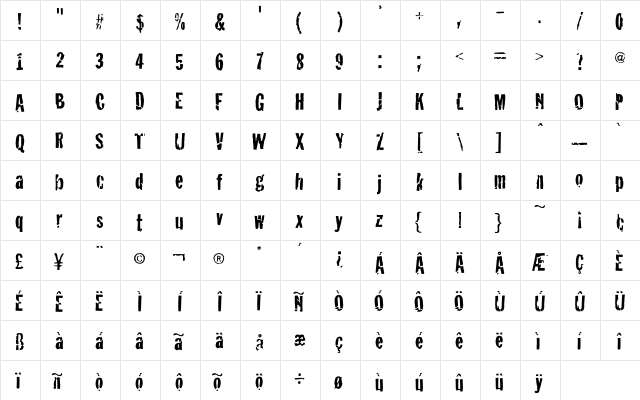
Crackhouse Regular
Design Context for Crackhouse Typeface
Crackhouse is a composed and adaptable typeface that performs quietly and consistently across a wide range of design contexts.